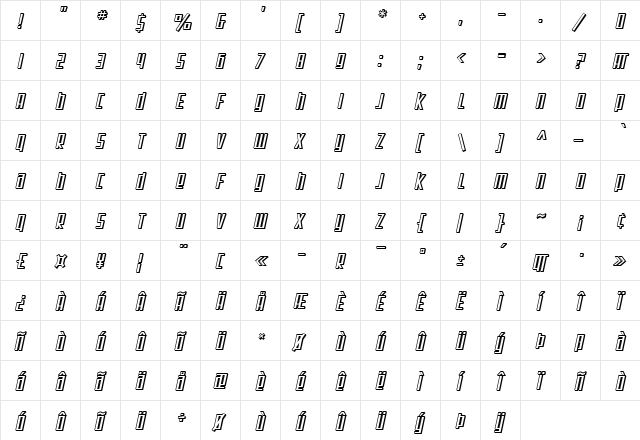
SF Square Root Shaded Oblique
Design Context for SF Square Root Shaded Typeface
SF Square Root Shaded is a composed and adaptable typeface that performs quietly and consistently across a wide range of design contexts. The slanted form adds forward momentum and visual energy.
Pro Tip: Use SF Square Root Shaded for emphasis, pull quotes, and subheadings where its slanted energy can add rhythm to the layout.